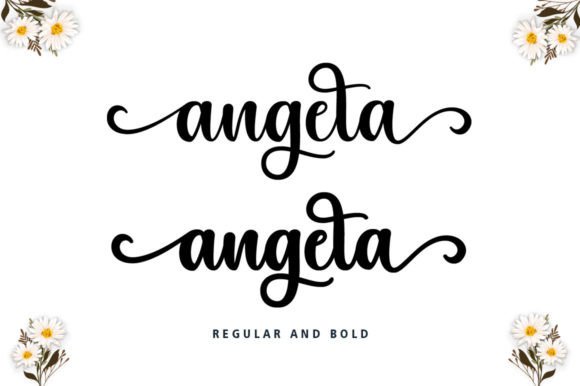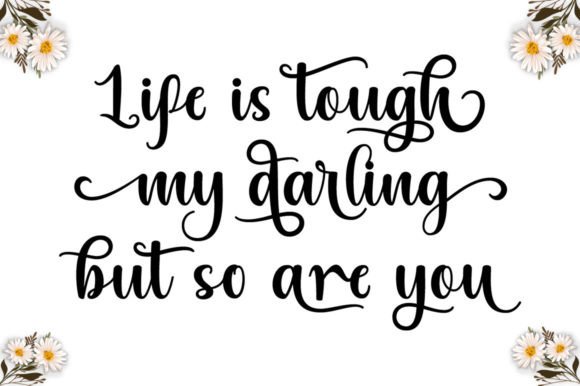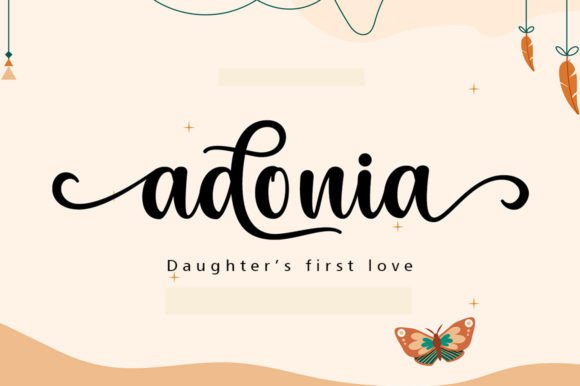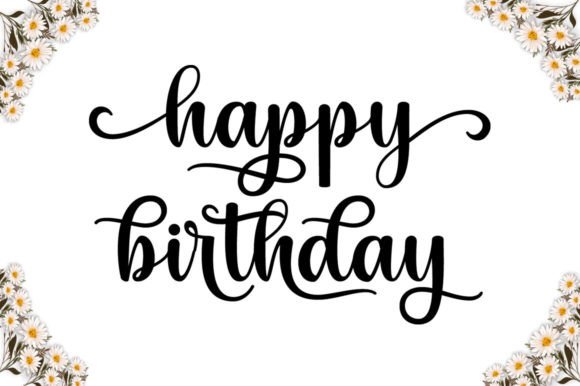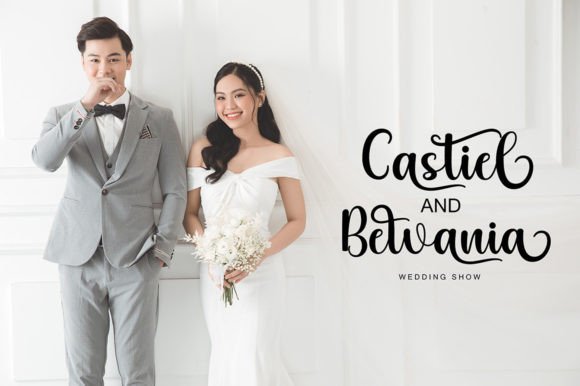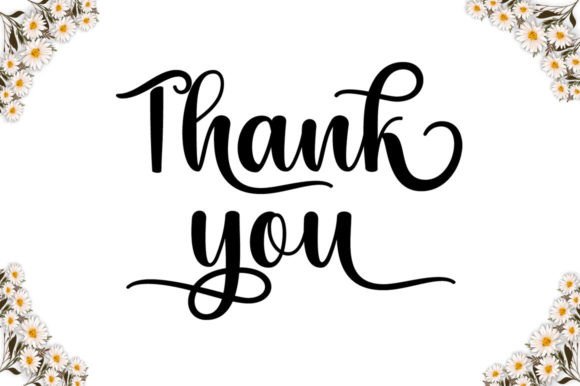
The Elusive Perfect Font: My Encounter with Good Angela
I still remember the frustration of working on a high-end branding project, scrambling to find the perfect font that exuded luxury and sophistication. My client was particular about the aesthetic, and I was determined to deliver. After hours of searching, I stumbled upon Good Angela, a exquisite script font that instantly caught my attention. Its flowing letterforms and elegant vibe seemed tailor-made for the project. I was thrilled to have found a font that not only met but exceeded my expectations.
An Honest Review of Good Angela
- ✨ Timeless Beauty: Good Angela’s classic design ensures it remains stylish and relevant for years to come.
- ✅ Elegant Letterforms: The font’s flowing script and refined aesthetic make it perfect for upscale projects.
- 💫 PUA Encoding: Easy access to delightful glyphs and swashes, allowing for effortless customization.
- 🌟 Versatility: Suitable for a range of applications, from high-end branding to wedding invitations.
While Good Angela is an exceptional font, there are a few minor considerations to keep in mind:
- ⚠️ PUA Encoding: While convenient, PUA encoding can sometimes lead to compatibility issues with certain software or platforms.
- 🤔 Glyph Overload: With so many glyphs and swashes available, it can be overwhelming to navigate and choose the right ones.
The Story Behind Good Angela
Good Angela was designed with the intention of creating a sophisticated and elegant typeface that would cater to the needs of designers seeking a luxurious aesthetic. The font’s creator drew inspiration from classic calligraphy and refined typography, aiming to craft a font that would leave a lasting impression on audiences.